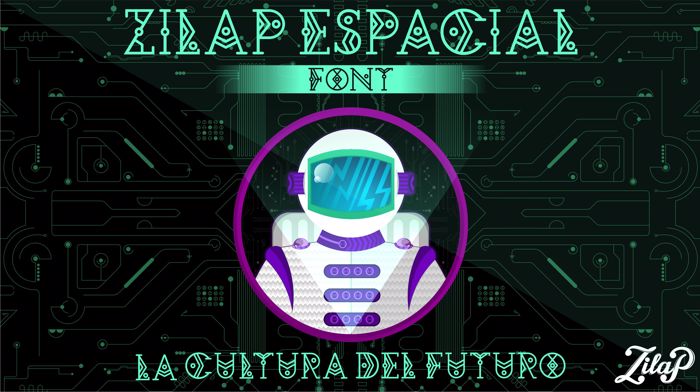
Zilap Espacial Font
This font is based on a spatial and futuristic approach, perfect to handle conceptualizing projects about outer space, projects with Futuristic, alien or galactic approaches.